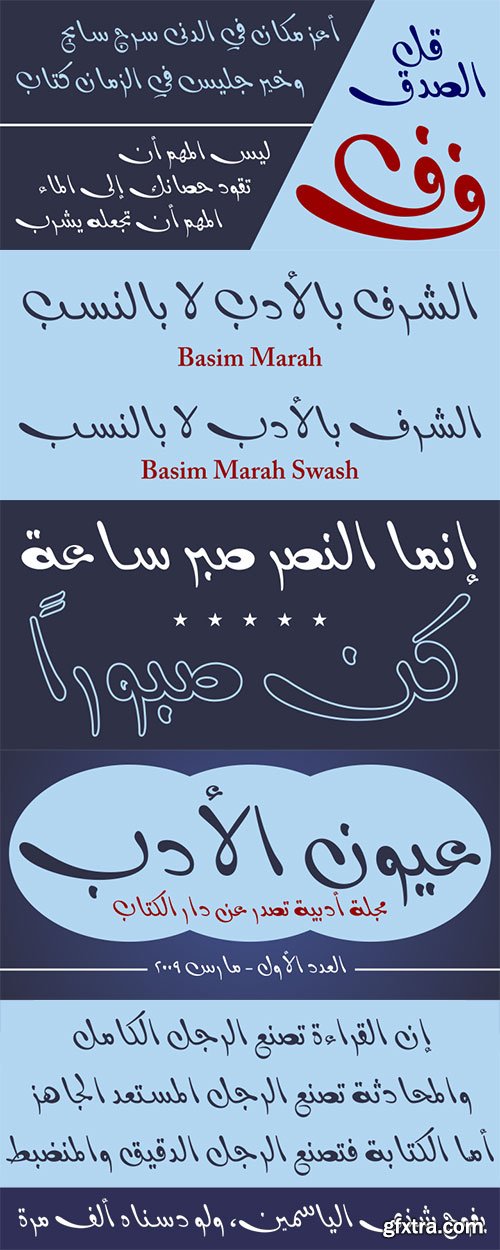
- Basim Marah is an Arabic display typeface and is useful for titles and graphic projects. The font is based on the simple lines of free style calligraphy. A collaborative effort, Basim Marah was designed and drawn by Basim Salem Al Mahdi from Iraq and then digitalized as a typeface by Hasan Abu Afash from Palestine.
- In November, 2008, Basim Marah was upgraded by working with Mirjam Somers an award-winning Arabic type designer to the DecoType font format for use in WinSoft Tasmeem which is now bundled with InDesign CS4.